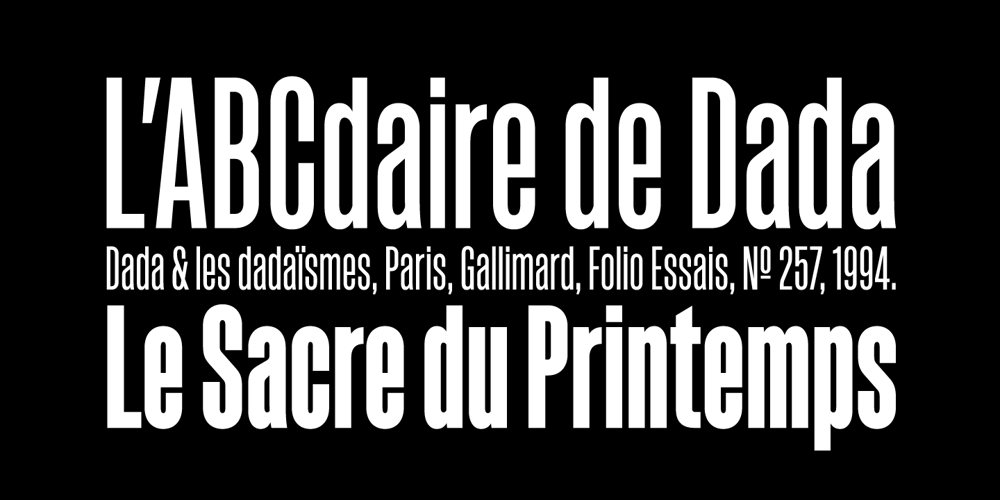
Sorren
Sorren font
Sorren Font Family was designed by Michael Jarboe and published by Reserves. Sorren contains 4 styles and family package options. Sorren is a definitive bold condensed sans influenced by neo-grotesque designs. A relatively low stroke contrast complimented with sharp, horizontal stroke ends lend an unyielding appearance, while it’s rounded forms and refined curves juxtapose its inherent strength with grace. Stylistically, Sorren has a classic, timeless feel with a contemporary finish and attention to detail. It is characteristically more elegant and considerably sturdier than the typical condensed sans, lending to its singular disposition.